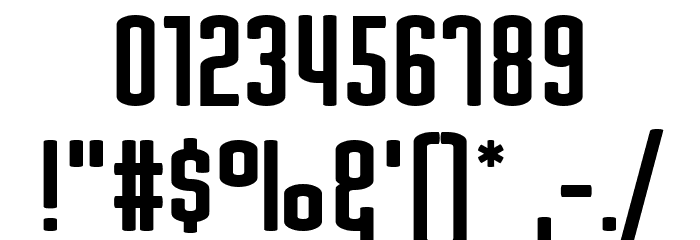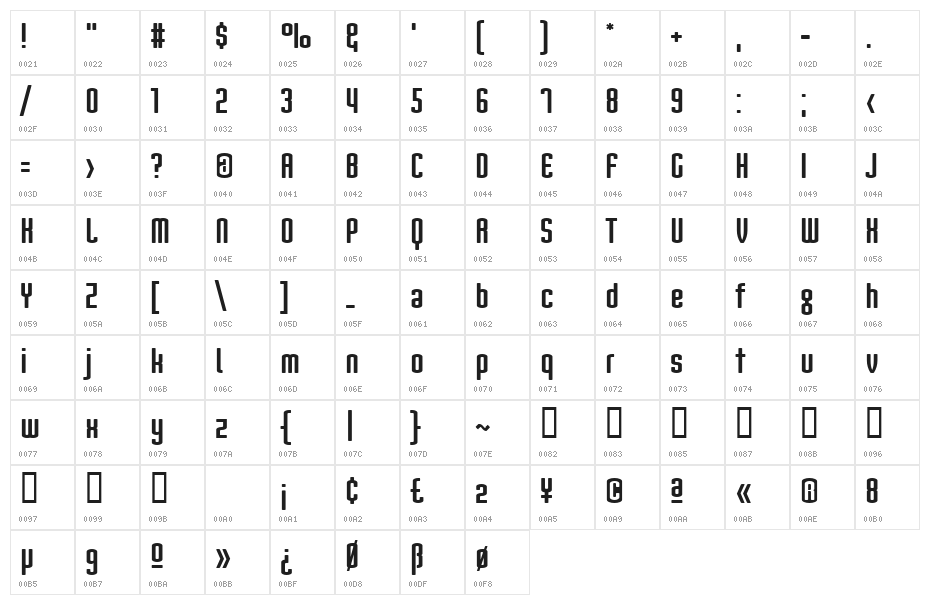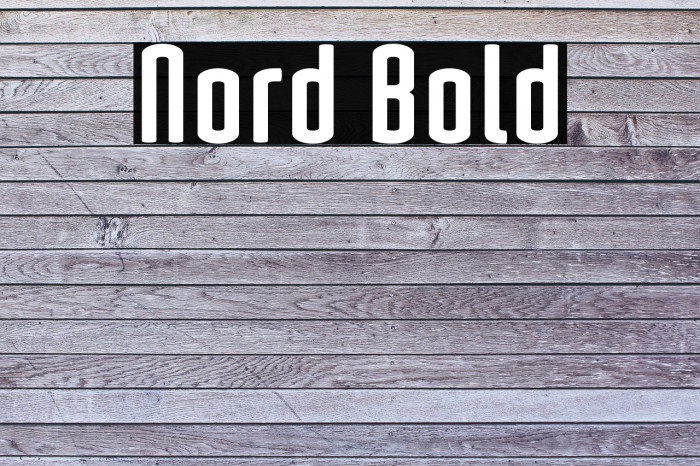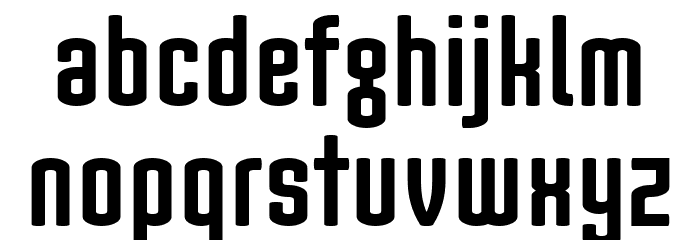
Nord Bold Font
Nord Bold Description
This font features a bold, modern design with a geometric structure. The characters are tall and narrow, giving a condensed appearance that maintains readability. The strokes are consistent in width, providing a uniform look across all characters. The uppercase letters are particularly striking, with a strong presence that commands attention. The lowercase letters complement the uppercase with a similar style, ensuring cohesion throughout. The numerals are clear and distinct, making them suitable for various applications. Special characters are included, maintaining the same bold and modern aesthetic. Overall, this font is versatile, suitable for both digital and print media.